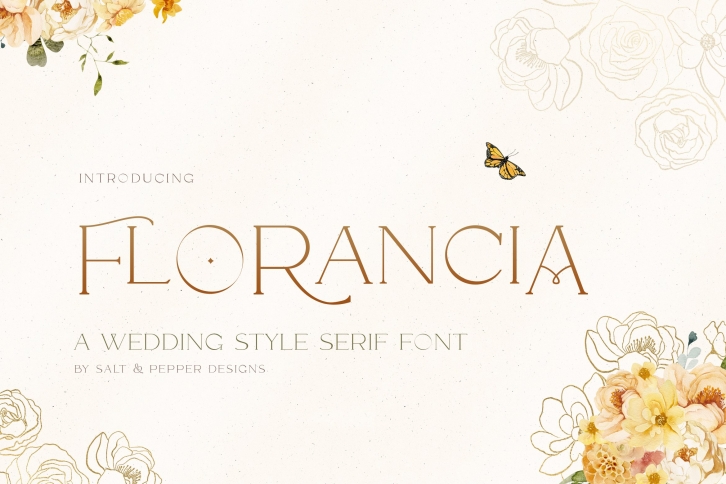
Florancia Serif is a beautiful font that was designed by Salt and Pepper Designs. It's a great choice for designers and creatives who need such a font. It was released on April 6, 2021 and the file size is 6.14 MB. Florancia Serif may give a more youthful, expressive and casual look to your project. It is a very beautiful, refined, elegant, and high-quality font.